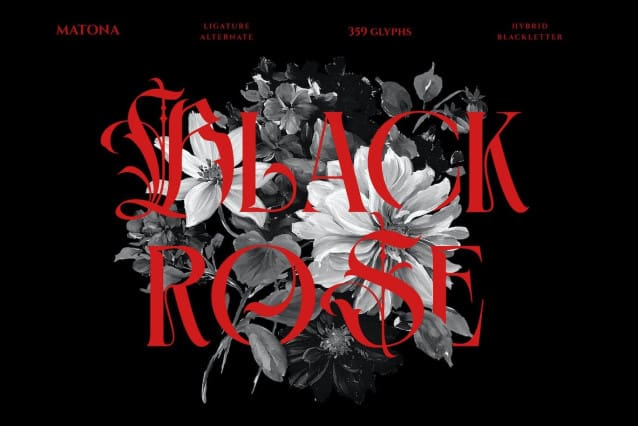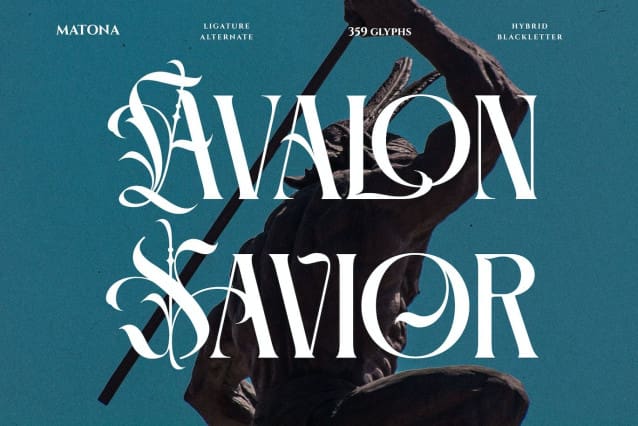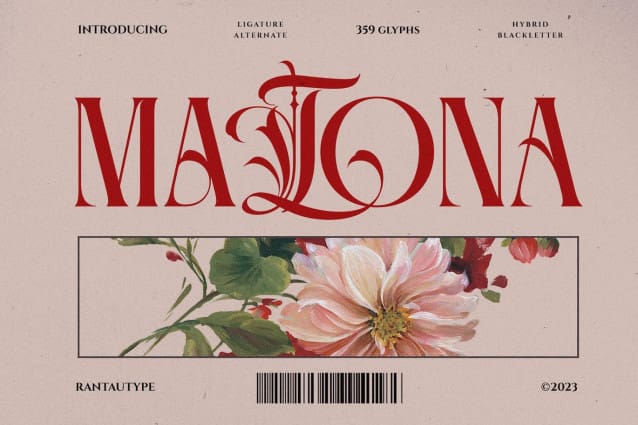
Matona Font is bold and hybrid blackletter font. Its delicate curves and refined details create a sense of sophistication and elegancy. Matona brings a touch of charm and sophistication to branding, editorial designs, and more. We keep this font look strong, classic, vintage and Elegant. We love how ligature and alternate features you can mix and max to make a stunning design. Matona typeface offers extensive multilingual support and includes PUA unicode for easy access to special characters.
Matona Font is a beautiful choice for any creative endeavor, great choice for watermark on photography, branding, logo design, quotes, album cover, magazine and many other design project. Matona here to make your work to high level!!!